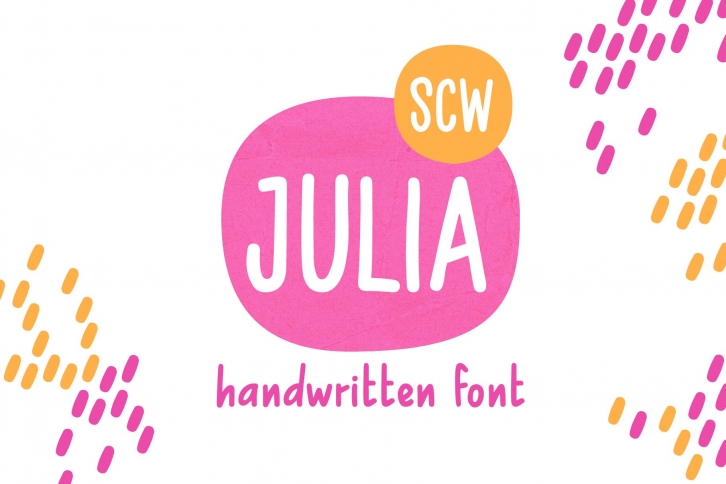
Julia-SCW is a friendly handwritten font.
It comes with uppercase, lowercase, numerals, and other characters, symbols. Supported characters are shown in the product images.